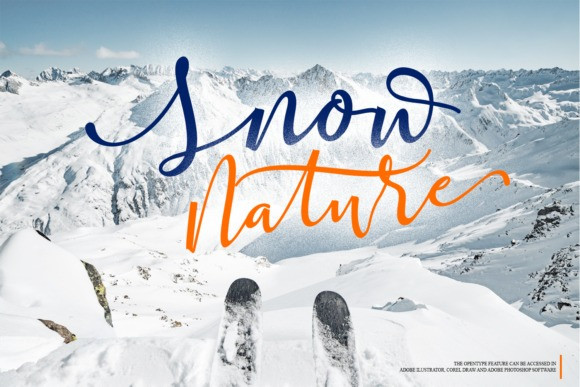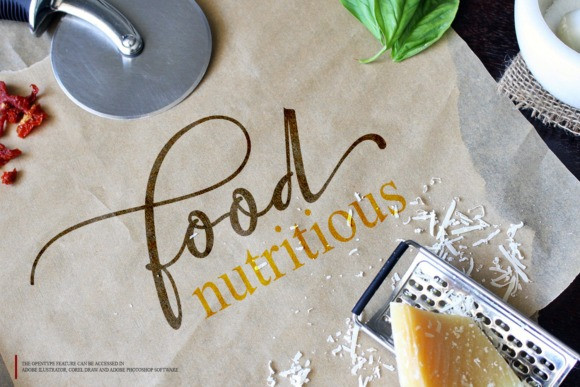
Genitha Handwritten Font
Genitha Handwritten Font, an elegant and stylish handwritten script that you can use to perfect your design. You will get a full set of lowercase and uppercase letters, multilingual, numerals, and punctuation.